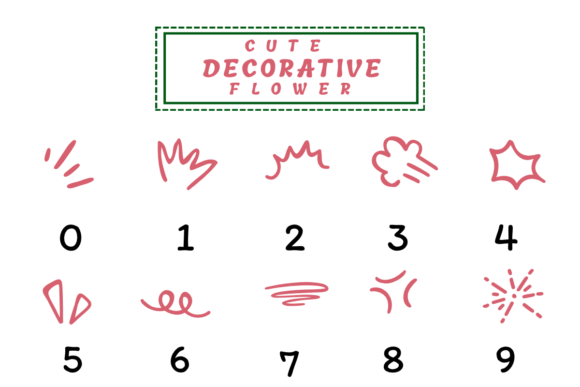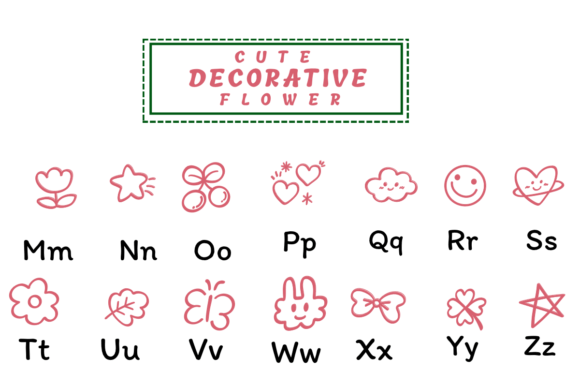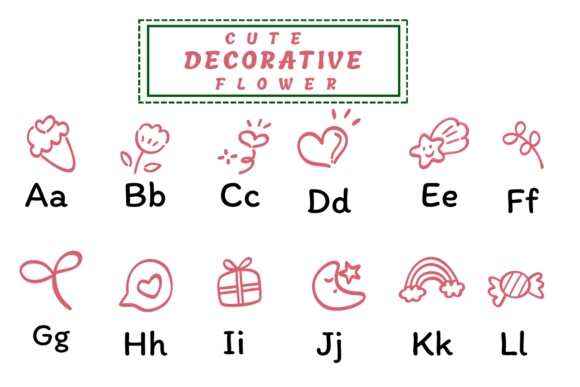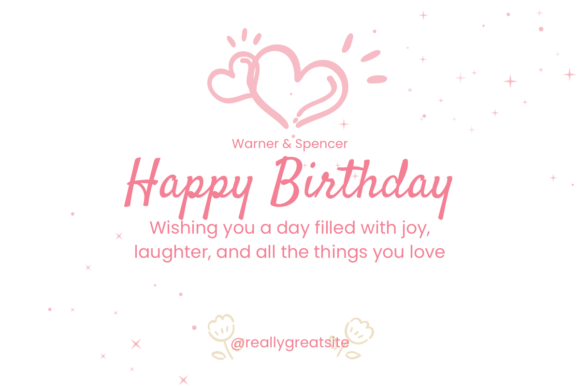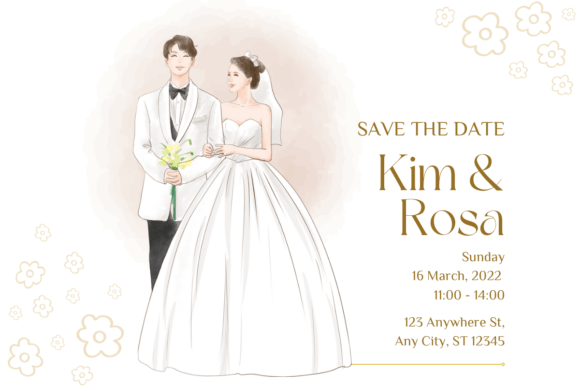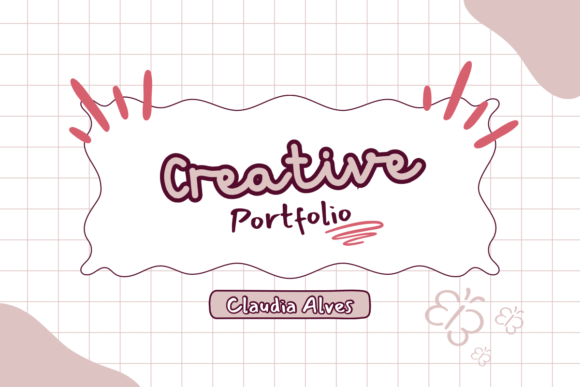
Cute Decorative Flower Font: Elevate Your Designs with Whimsical Charm
Are you a designer, crafter, or DIY enthusiast looking for a unique and charming font to add a personal touch to your projects? Look no further than the Cute Decorative Flower font, a delightful dingbat font that brings a sketch-style theme to your creative endeavors. In this article, we’ll explore the features and benefits of this lovely font, and how it can enhance your wedding invitations, DIY projects, crafts, decorations, logos, and more.
What is Cute Decorative Flower Font?
Cute Decorative Flower is a dingbat font that features a beautiful, hand-sketched design with a floral theme. The font is carefully crafted to provide a whimsical and romantic feel, making it perfect for a wide range of creative projects. With its unique and eye-catching design, this font is sure to add a touch of elegance and sophistication to your work.
Key Features of Cute Decorative Flower Font
- Sketch-style design: The font features a beautiful, hand-sketched design that gives it a unique and personal touch.
- Floral theme: The font’s floral theme makes it perfect for projects that require a touch of elegance and sophistication.
- Dingbat font: As a dingbat font, Cute Decorative Flower can be used to add decorative elements to your projects, such as borders, frames, and icons.
- Versatile: The font can be used for a wide range of creative projects, from wedding invitations to DIY crafts and decorations.
How to Use Cute Decorative Flower Font
Cute Decorative Flower font can be used in a variety of creative projects, including:
- Wedding invitations: Add a touch of romance and elegance to your wedding invitations with this beautiful font.
- DIY crafts: Use the font to create personalized DIY crafts, such as cards, gift tags, and decorations.
- Decorations: Add a touch of whimsy to your decorations, such as garlands, banners, and signs.
- Logos: Use the font to create a unique and memorable logo for your business or brand.
Benefits of Using Cute Decorative Flower Font
- Unique and eye-catching design: The font’s unique design will help your projects stand out from the crowd.
- Versatile: The font can be used for a wide range of creative projects, making it a great addition to your design toolkit.
- Time-saving: With Cute Decorative Flower font, you can quickly and easily add decorative elements to your projects, saving you time and effort.
Tips and Tricks for Using Cute Decorative Flower Font
- Experiment with different sizes and colors: Try out different sizes and colors to see how the font looks in different contexts.
- Combine with other fonts: Combine Cute Decorative Flower font with other fonts to create a unique and interesting design.
- Use for decorative elements: Use the font to create decorative elements, such as borders, frames, and icons.
Cute Decorative Flower font is a beautiful and versatile dingbat font that can add a touch of whimsy and elegance to your creative projects. With its unique and eye-catching design, this font is perfect for designers, crafters, and DIY enthusiasts looking to add a personal touch to their work. Whether you’re creating wedding invitations, DIY crafts, decorations, or logos, Cute Decorative Flower font is a great choice. So why not give it a try and see how it can enhance your designs?